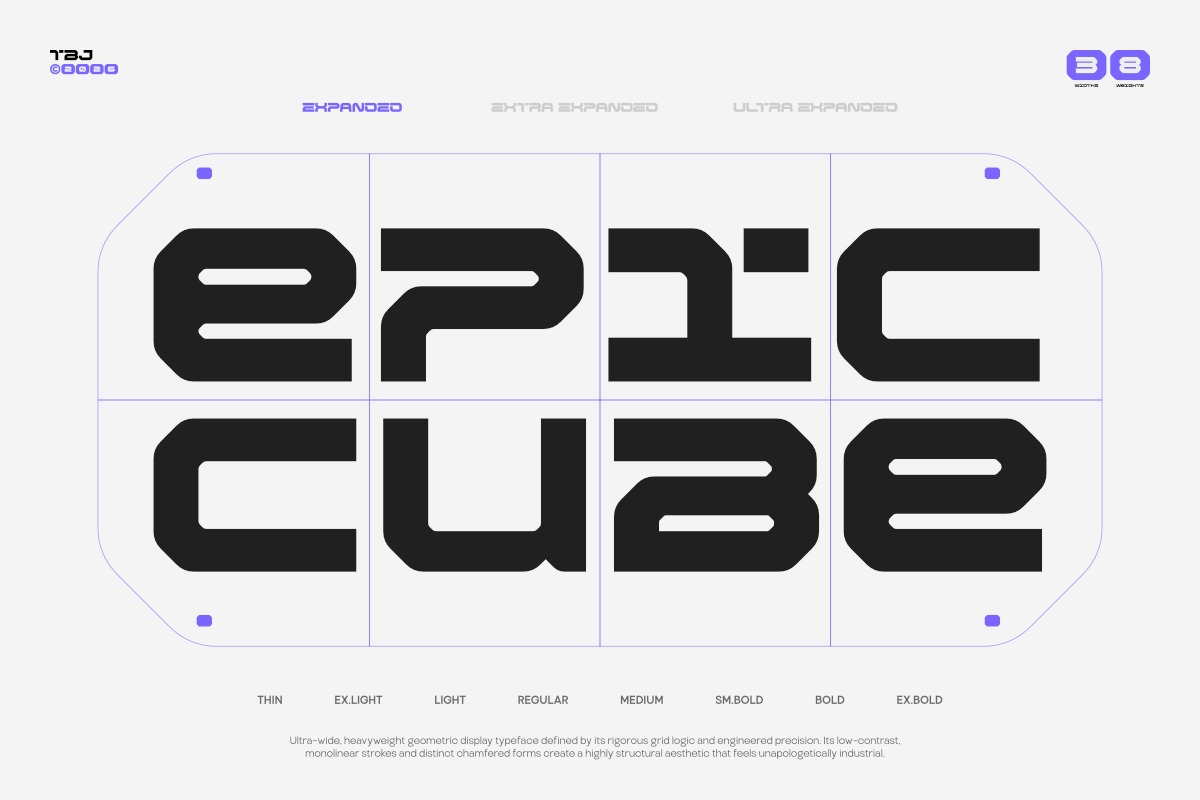
TBJ Epic Cube Font Family
TBJ Epic Cube Font Family is a flexible and reliable font created to fit multiple design needs, from branding and packaging to social media and editorial layouts. Some headlines don’t ask for attention — they demand space and refuse to shrink. TBJ Epic Cube Sans Expanded is a wide-format display sans built on hard-edged, cube-derived geometry: squared terminals, flat cuts, and zero typographic compromise. Rooted in futuristic grotesque tradition, it replaces organic softness with structural rigidity — every letterform read as architecture, not ornament.
Three width grades — Expanded, Extra Expanded, and Ultra Expanded — give designers control over how far a headline pushes across the canvas. The squared stroke terminations and uniform stroke weight hold at large display sizes without optical collapse, while the geometric construction stays consistent across all eight weights from Thin to Extra Bold. Extreme widths don’t distort the cube logic; they amplify it.
TBJ Epic Cube Sans Expanded performs at its strongest in contexts where type carries visual weight equal to imagery: sport event branding, sci-fi entertainment identities, gaming UI, esports team graphics, and stadium signage. It sets equally hard in tech product launches, dystopian editorial spreads, and motion graphics title cards — anywhere the brief calls for presence with precision.
Technical specs:
24 styles (8 weights × 3 widths)
Geometric sans serif / wide display classification
Optimized for headline and large-scale display use
TBJ Epic Cube Sans Expanded — cube geometry at display scale, with no tolerance for the ordinary.